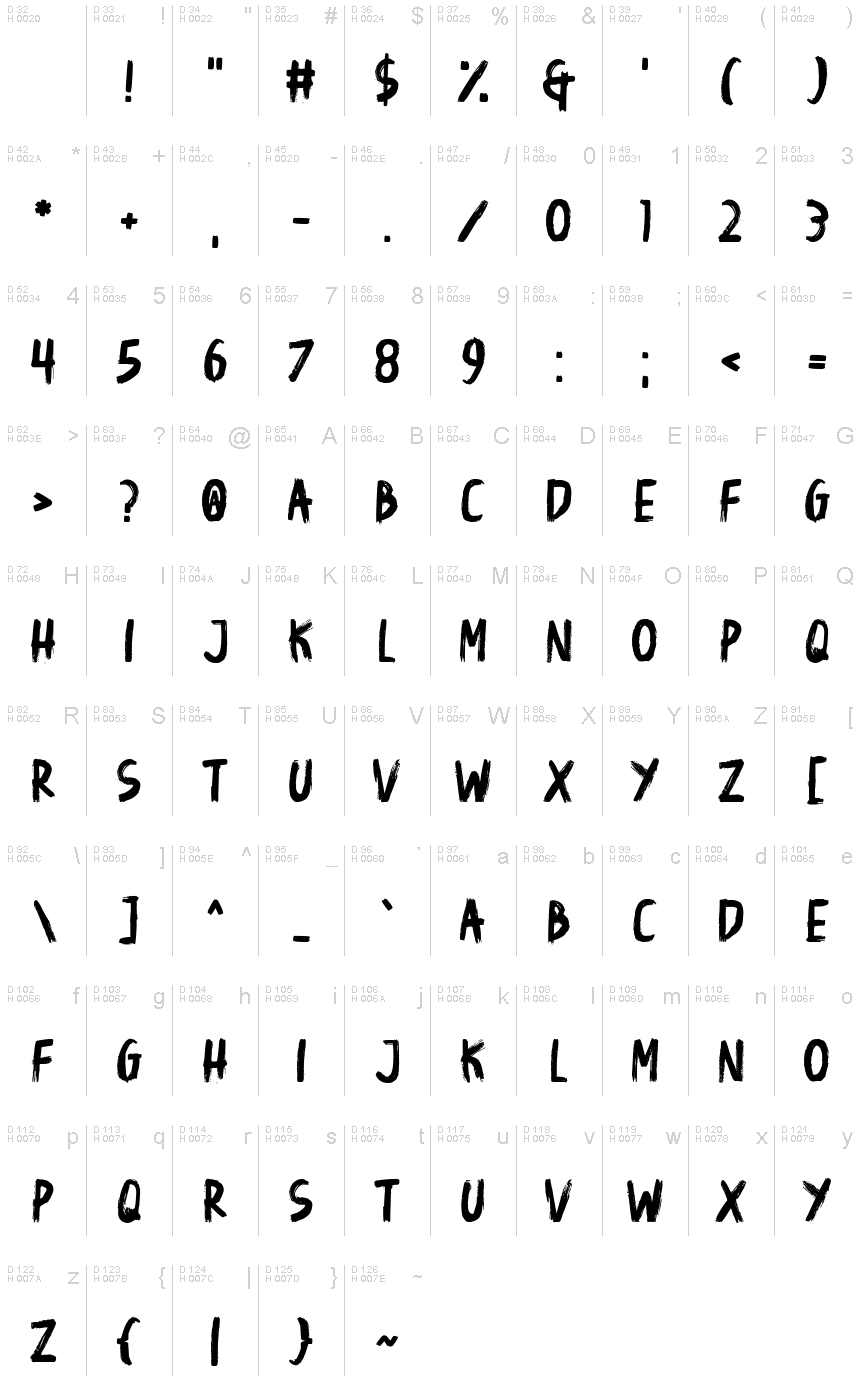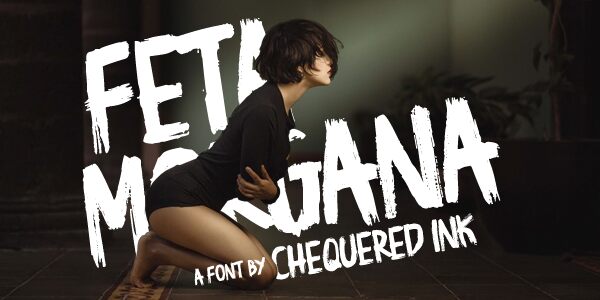
Feta Morgana
Feta Morgana, a creation by Chequered Ink, dances on the page with its brush-style strokes that evoke a sense of artistic flair and spontaneity. Its condensed form adds an energetic rhythm to its appearance, making each letter seem as though it's been swiftly painted by an artist’s hand. The font's texture is reminiscent of ink or paint on canvas, giving it a raw and rustic charm.
This font lends itself to projects that require a touch of the unconventional. It stands out in creative branding, edgy advertising campaigns, and any platform where an expressive voice is key. Feta Morgana thrives in spaces where design seeks to break free from the mundane and embrace imperfection as part of its aesthetic power.